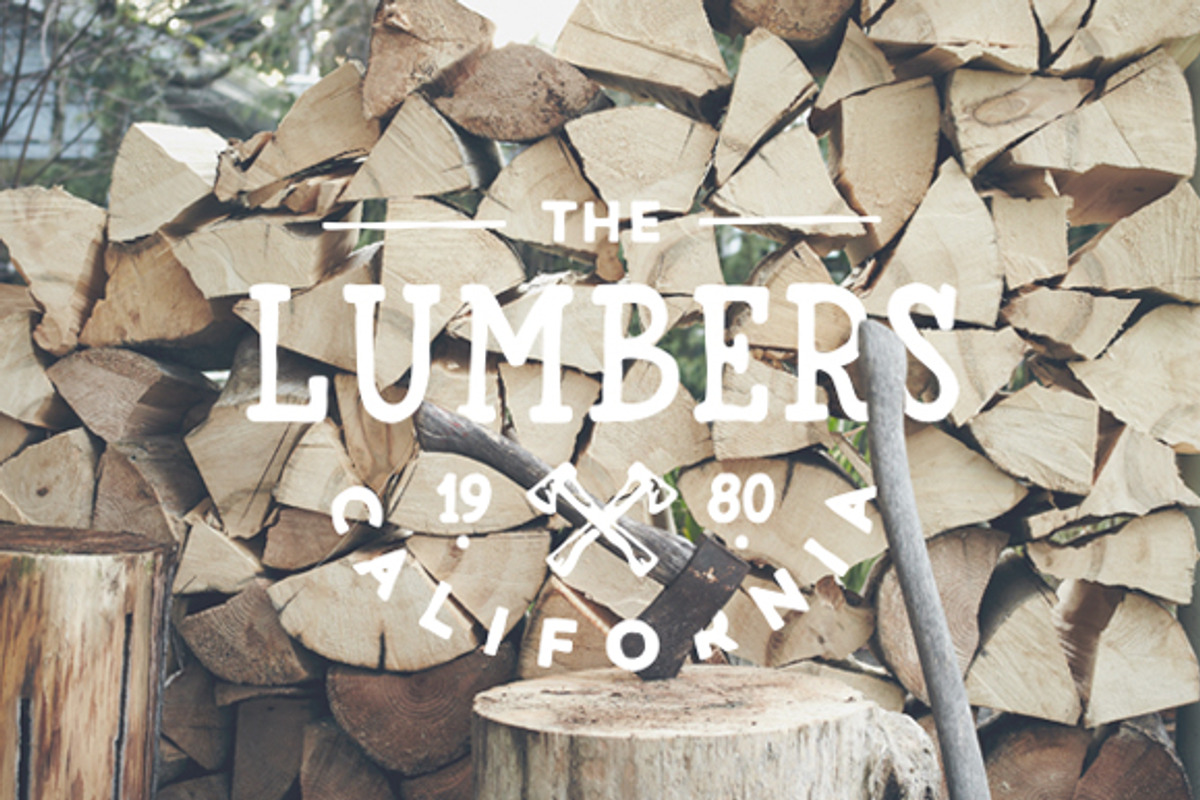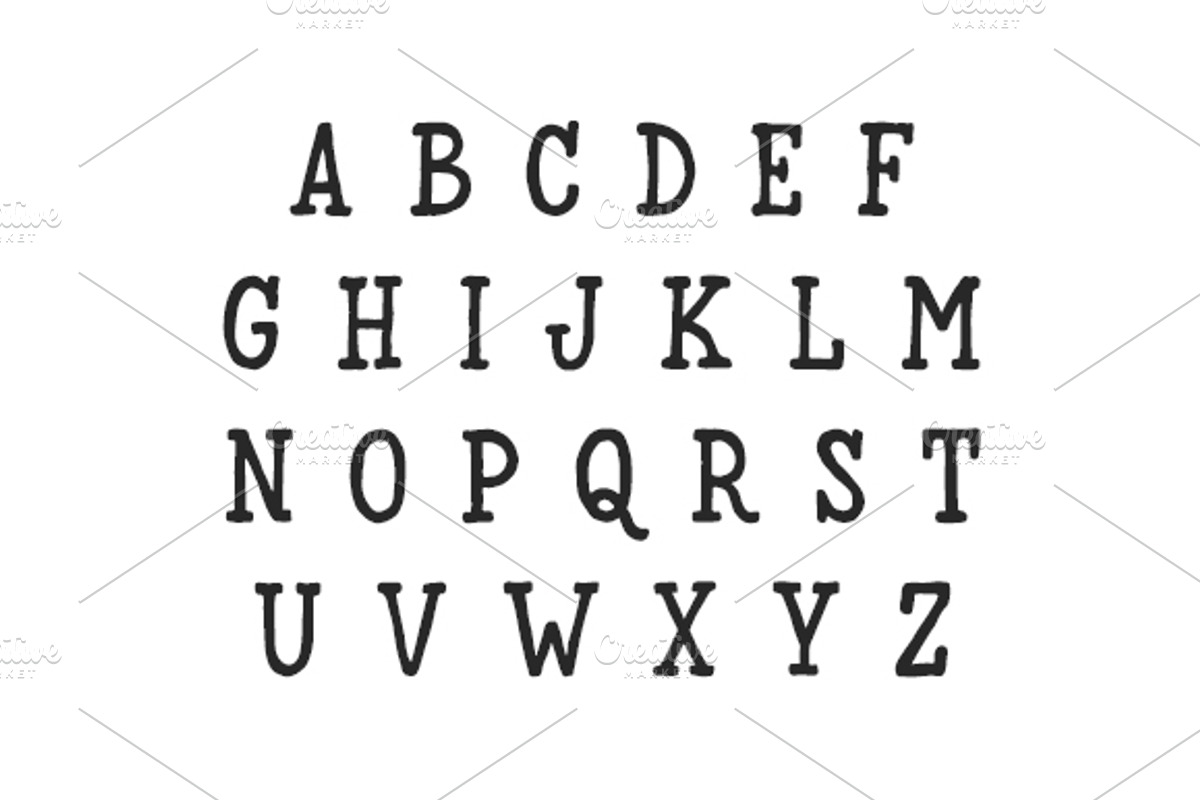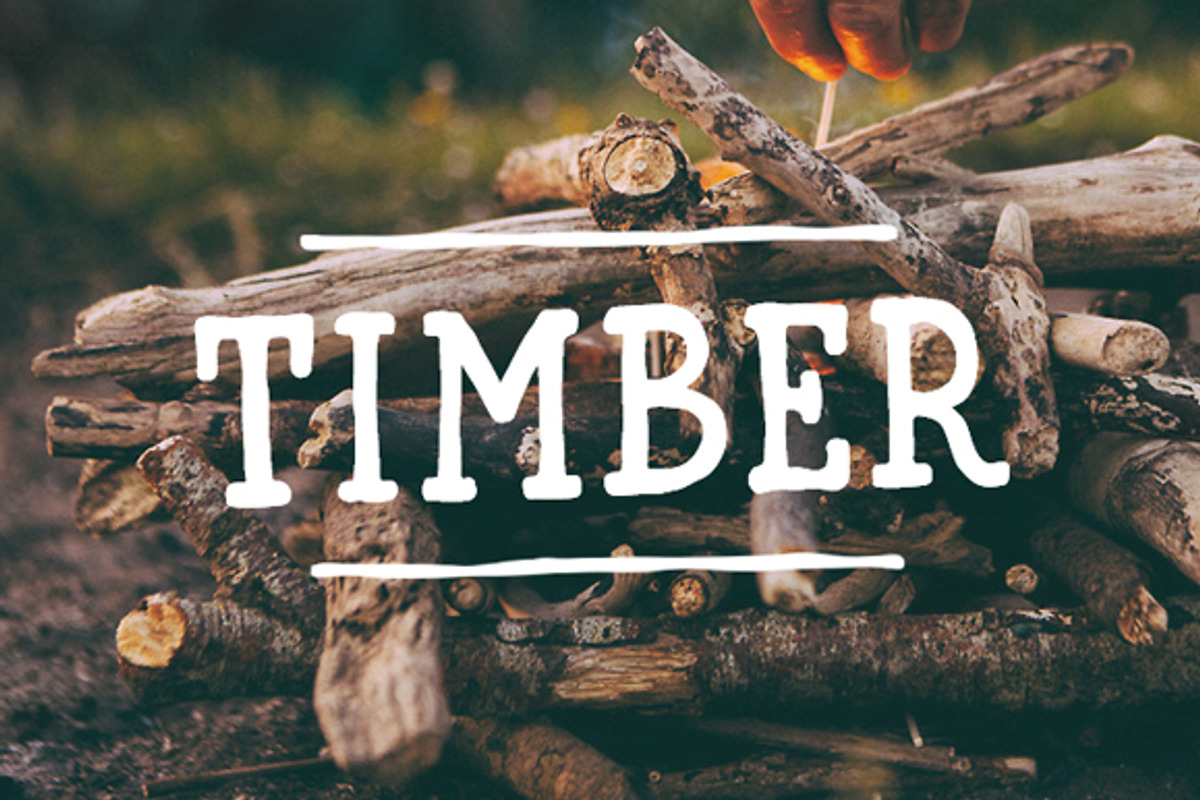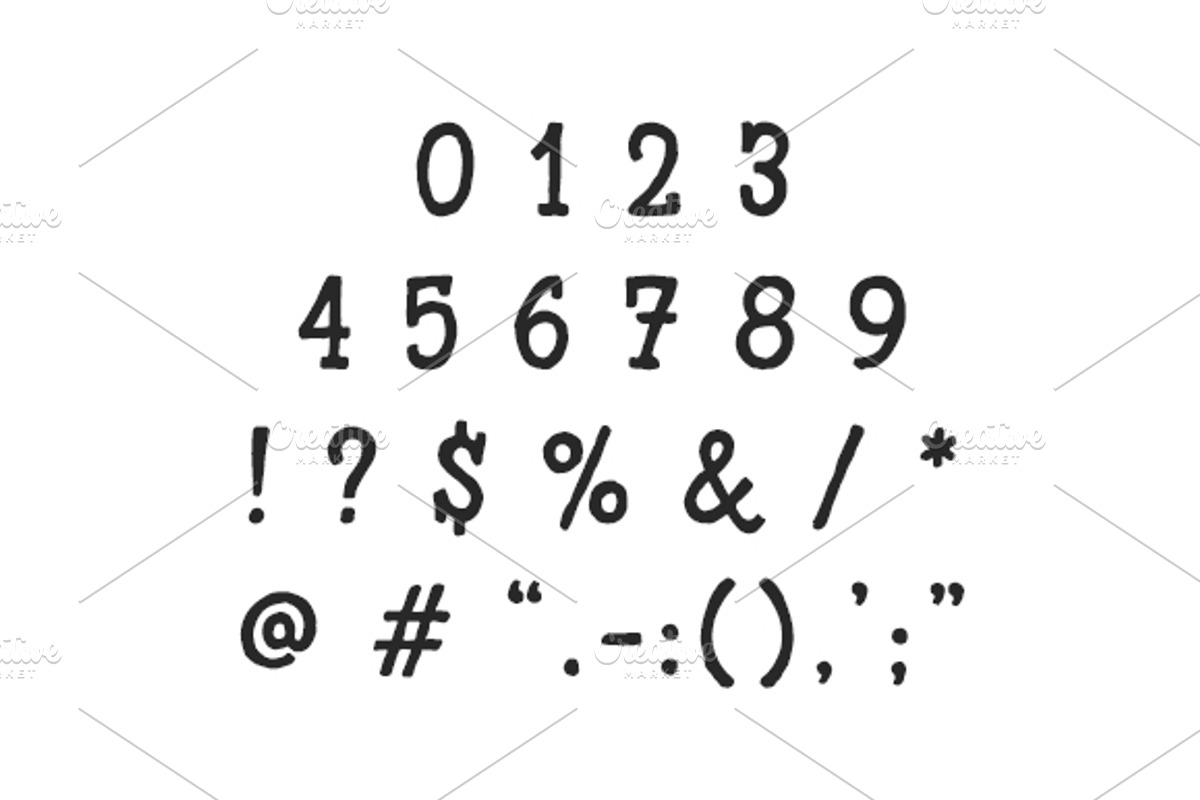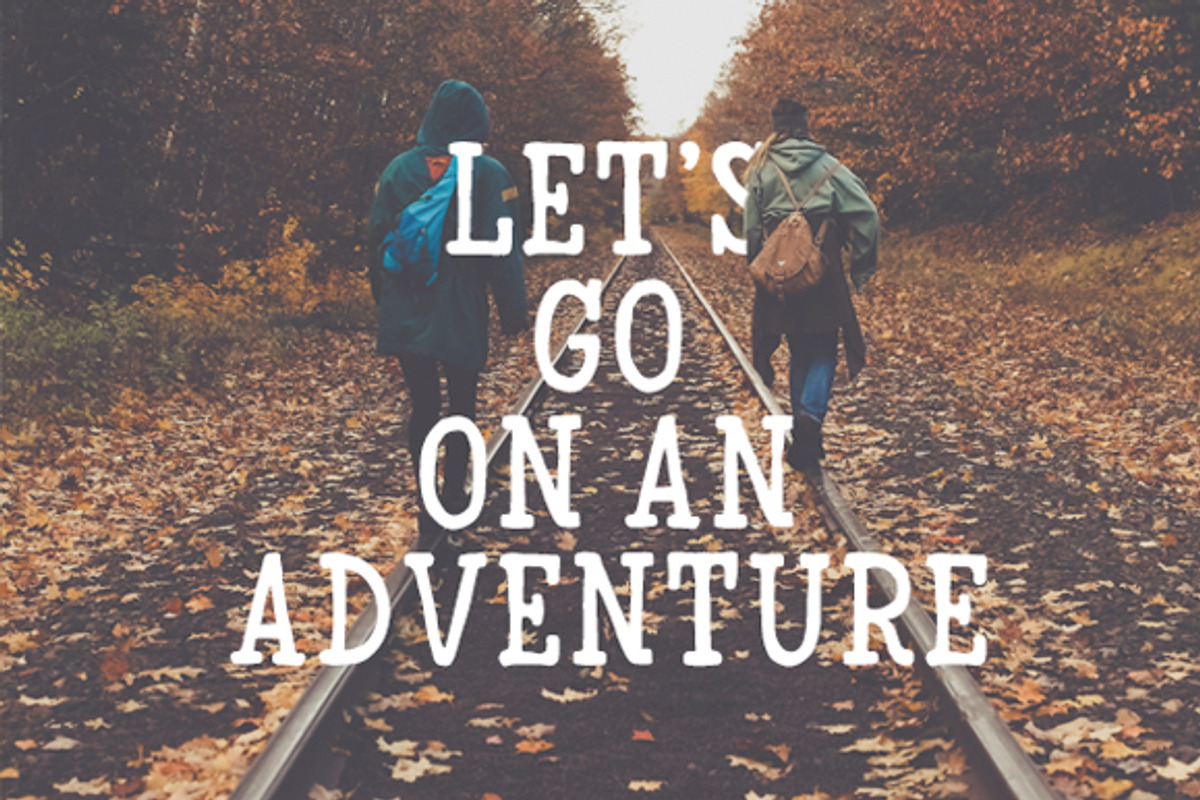
Timber Font
Timber Font by Mark van Leeuwen is a font selected for branding, posters, packaging, typography.
- The typeface contains an uppercase alphabet, numbers and symbols.
Timber Font by Mark van Leeuwen fits naturally into Branding, posters, packaging, typography.